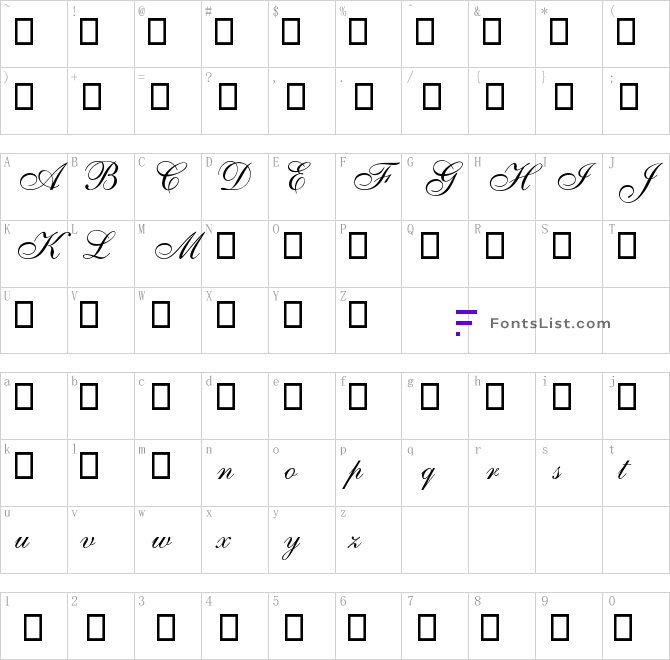
- Font Name:ALS Script (Trial)
ALS-Script-Trial-.ttf is a very beautiful artistic font, ALS-Script-Trial-.ttf is widely used in the design and printing of various books and pictures,ALS-Script-Trial-.ttf has a strong visual impact,ALS-Script-Trial-.ttf is a commonly used font in newspapers, magazines and books, and is used in posters, e-commerce Poster design, store design, logo design, font design and other fields.ALS-Script-Trial-.